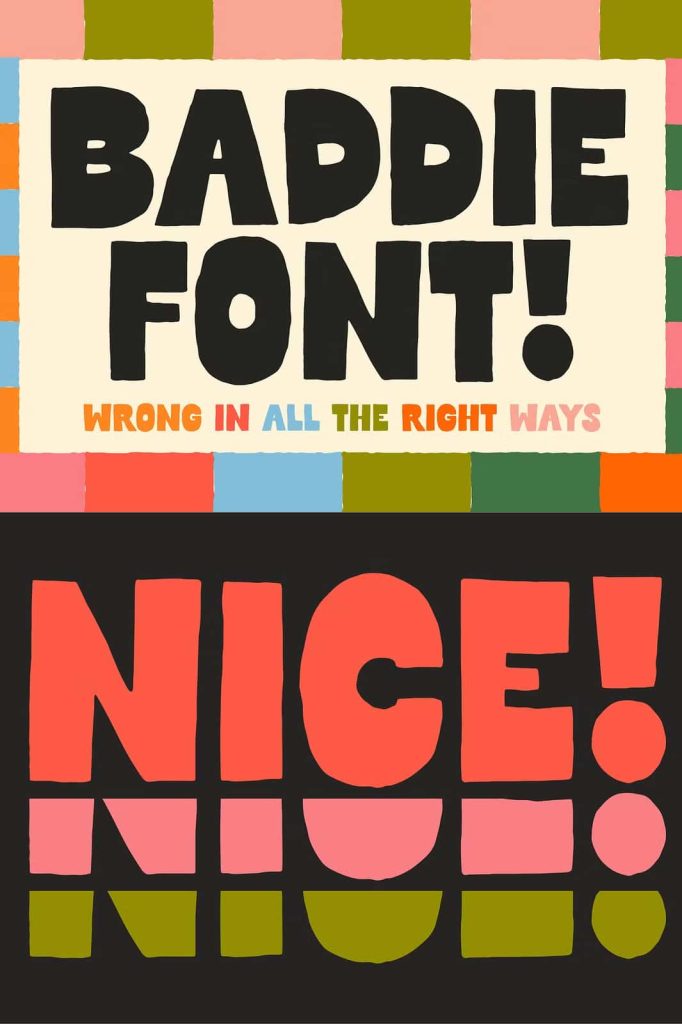
Baddie Font! A retro-inspired, hand-lettered, reverse contrast font! Made for rule breakers! I hand drew each character, including alternates, to create a font that has that wonderful handmade goodness!